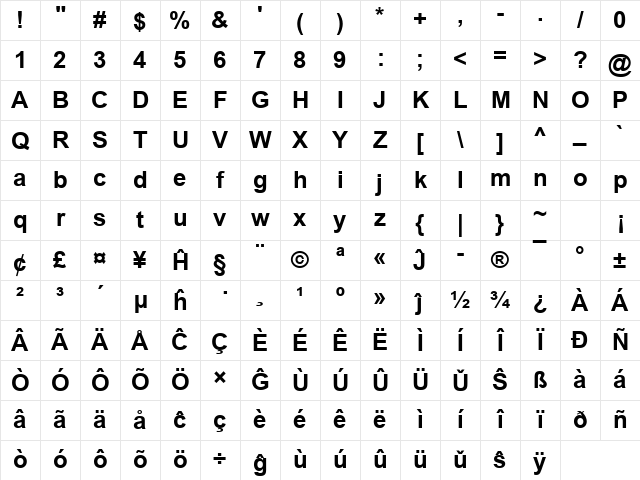
Arial Eo Bold
Complete Arial Eo Bold glyph index. Displaying only characters natively supported by Arial Eo Bold font.
Design Context for Arial Eo
Arial Eo is a composed and adaptable typeface that performs quietly and consistently across a wide range of design contexts. Its bold stroke weight gives it real presence on the page.